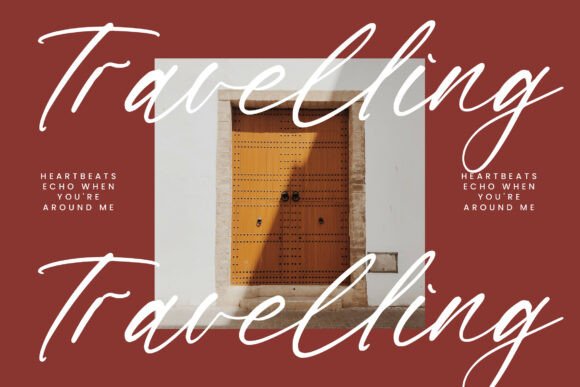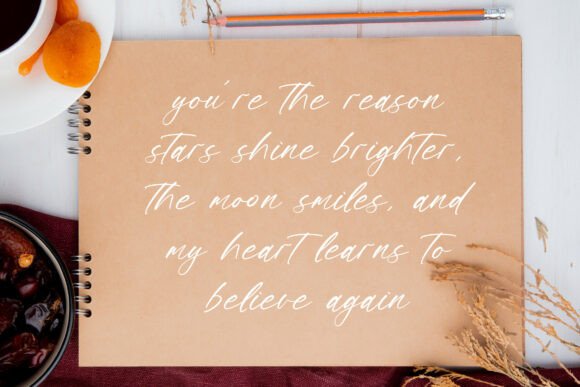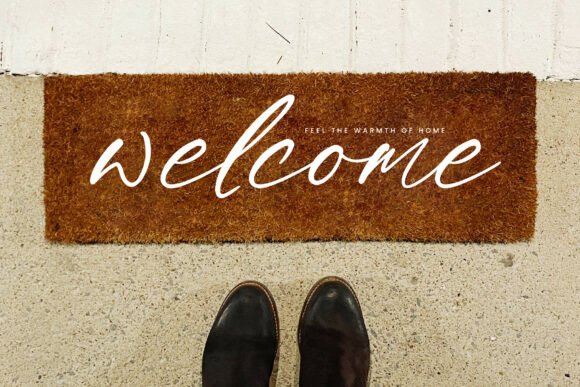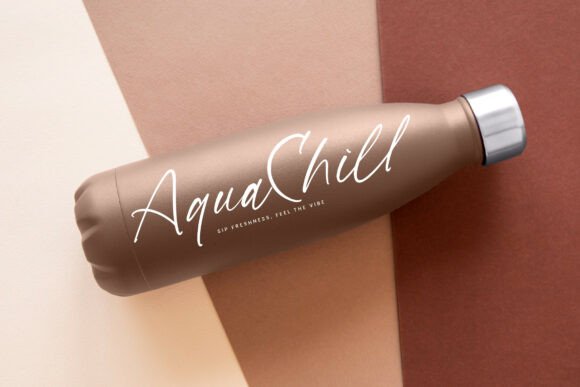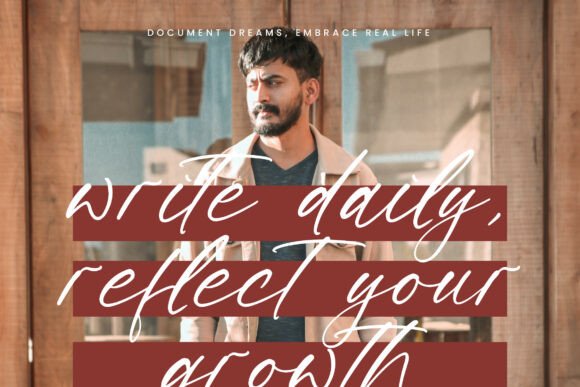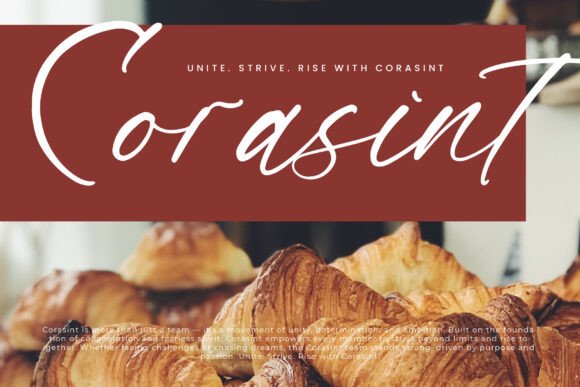
Introduction to Mantyalls Font
Have you ever found yourself standing in front of a blank canvas, eager to bring a creative project to life, but struggling to find the perfect design resource? That’s where the Mantyalls Font comes in – a stylish script font that adds a touch of artistic flair to any design.
With its fluid brush strokes, dynamic curves, and expressive letterforms, the Mantyalls Font captures the essence of hand-painted calligraphy with a modern twist. Whether you’re designing a logo, invitation, or social media graphic, this high-quality font delivers both visual impact and versatility, making it a valuable asset for designers looking to elevate their creative projects.
Key Features of Mantyalls Font
- High-quality font with a unique, hand-drawn design, perfect for creative projects that require a personal touch.
- Unique characteristics, such as its elegant and playful feel, make it an ideal choice for designers working on creative projects, including logos, posters, and typography-based art.
Honest Review: Mantyalls Font
I recently had the opportunity to work with the Mantyalls Font and I must say it’s a great addition to any designer’s toolkit. The font is a high-quality design resource that can elevate your creative project to the next level.
- High-quality design: The font is clean, modern, and visually appealing, making it perfect for a wide range of design projects.
- Limited character set: I found that the font only includes a limited character set, which may not be suitable for complex or long-form designs.
Overall, I’m impressed with the Mantyalls Font and would recommend it to designers looking for a high-quality, free design resource. While it has some limitations, it’s a great addition to any design toolkit.
Mantyalls Font is ideal for creating eye-catching graphics, logos, and text overlays. It’s also suitable for presentations, social media posts, and other digital content.